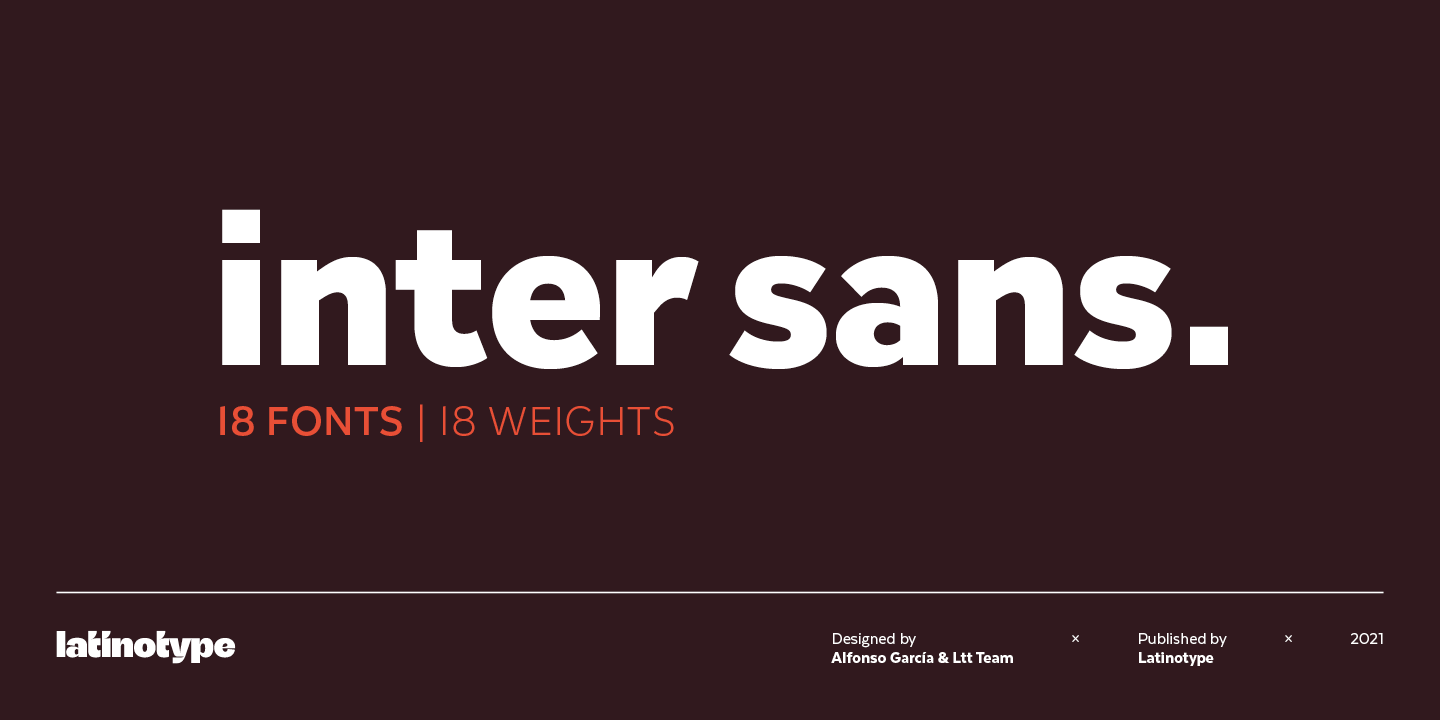
Inter Sans Font is perfect for modern website interfaces, mobile app designs, corporate branding materials, digital dashboard layouts, tech startup logos, professional presentations, user interface elements, clean editorial designs, and any design project that requires exceptional readability and contemporary sophistication.
What makes Inter Sans Font so exciting is its meticulously crafted design that achieves perfect balance between readability and modern aesthetic appeal. This font embodies the essence of contemporary digital typography with its clean, geometric letterforms that perform exceptionally well across all screen sizes and resolutions. The carefully optimized characters feature precise spacing and proportions that enhance user experience while maintaining professional elegance, creating a typography solution that works flawlessly in both digital and print environments.
The Inter Sans Font family typically includes multiple weight variations ranging from thin to black, with comprehensive character sets featuring uppercase and lowercase letters, numerals, punctuation marks, and extensive language support. Most versions offer additional styles like italic variants and condensed options, providing designers with complete typographic flexibility for complex interface and branding projects.
Inter Sans Font Free Download has become the go-to choice for UI/UX designers, web developers, and digital product teams who prioritize user experience and modern aesthetics. This distinctive typeface excels in digital applications where crystal-clear readability and contemporary appeal are essential for creating engaging user interfaces and professional brand communications.
The font's modern sans-serif design makes it particularly effective for technology companies, digital platforms, software applications, and progressive brands that need to communicate innovation and reliability. Its optimized character shapes and excellent screen performance ensure professional results across all digital devices and platforms.
Designers appreciate Inter Sans Font for its ability to deliver outstanding legibility while maintaining sleek, modern character that enhances brand perception. The font's versatile construction adapts beautifully to various design contexts, from minimal interfaces to comprehensive brand systems.
Whether you're developing website interfaces, mobile applications, corporate identity systems, or digital marketing materials, Inter Sans Font provides the perfect combination of functional excellence and contemporary style that elevates any project with clean, professional typography.